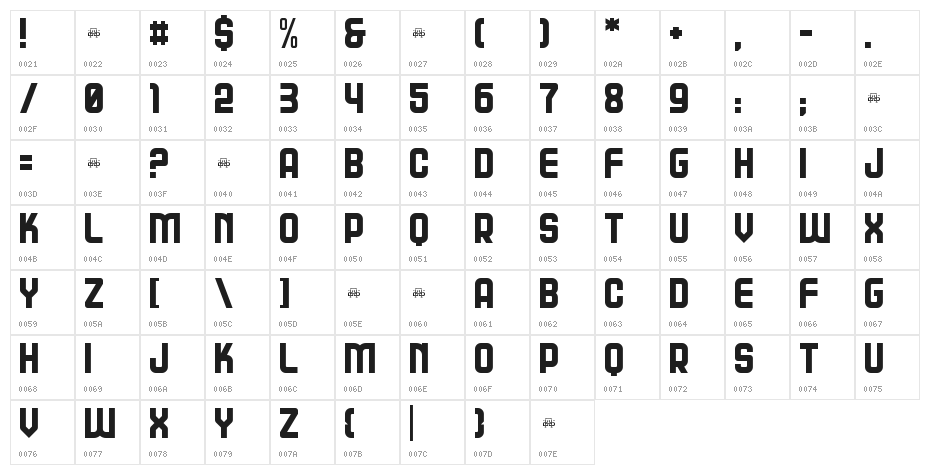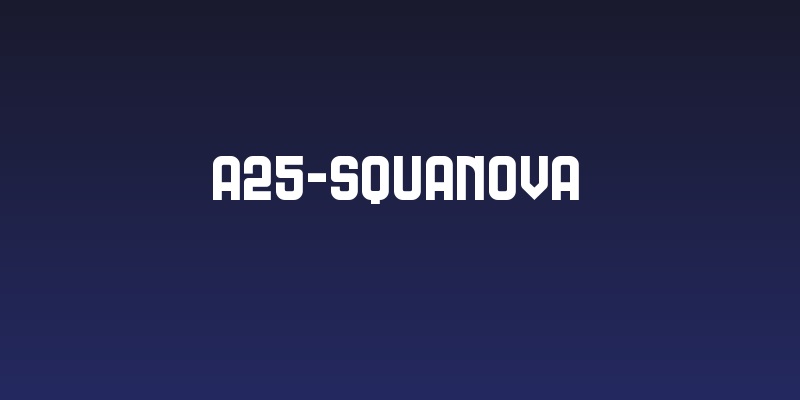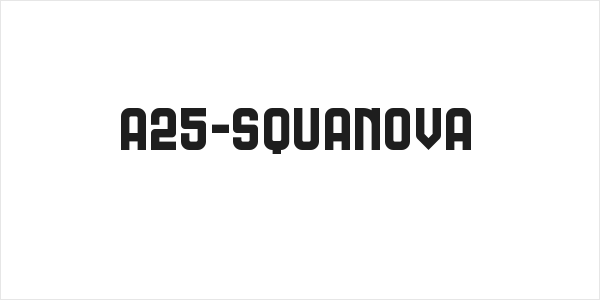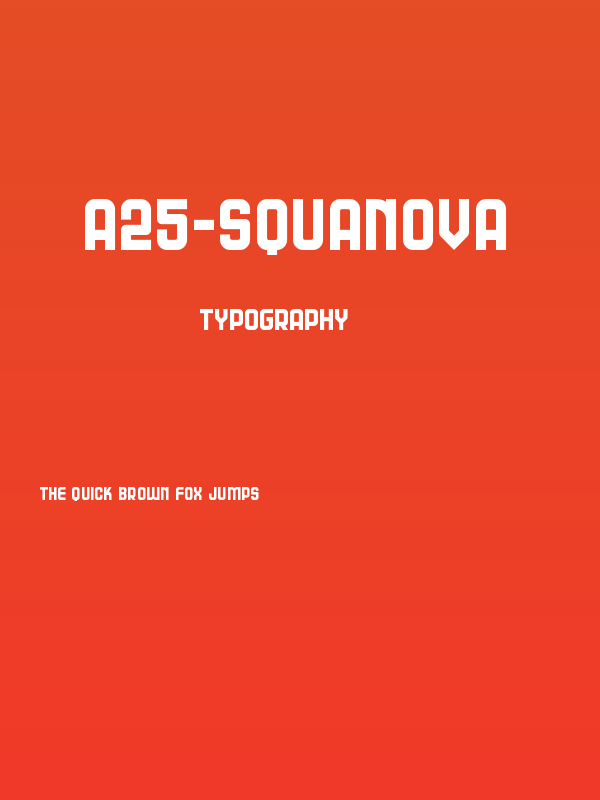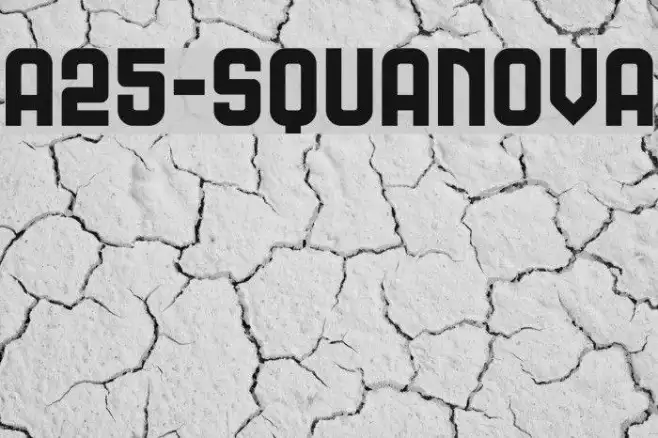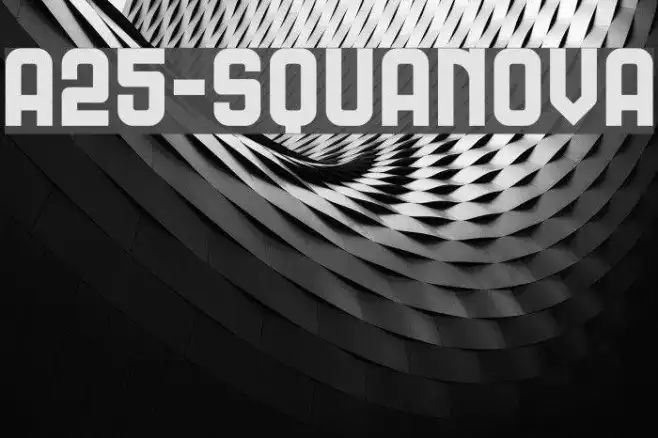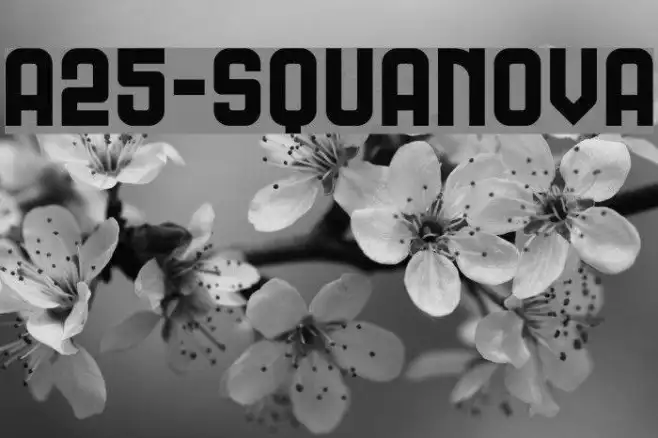
A25-SQUANOVA Font
A25-SQUANOVA Description
This font features a bold and geometric design, characterized by its strong, block-like structure and uniform stroke width. The letters are crafted with a modern aesthetic, offering a sense of stability and strength. The uppercase and lowercase letters maintain a consistent style, with sharp angles and clean lines that create a cohesive look. The numerals and special characters follow the same design principles, ensuring a harmonious appearance across all elements. The font's boldness makes it highly legible, even at smaller sizes, while its geometric nature adds a contemporary edge. This font is ideal for projects that require a modern and impactful visual presence.
| Proposed Projects | Ideal for branding, advertising, posters, and headlines that require a modern and impactful look. |